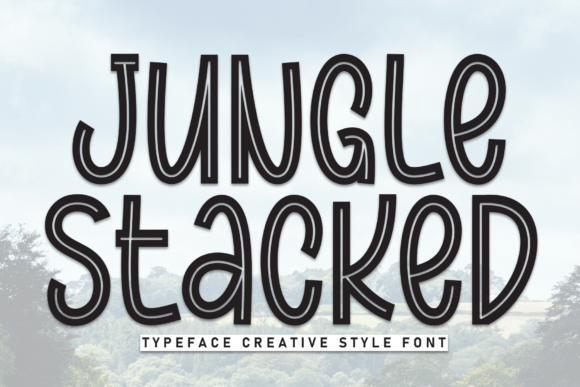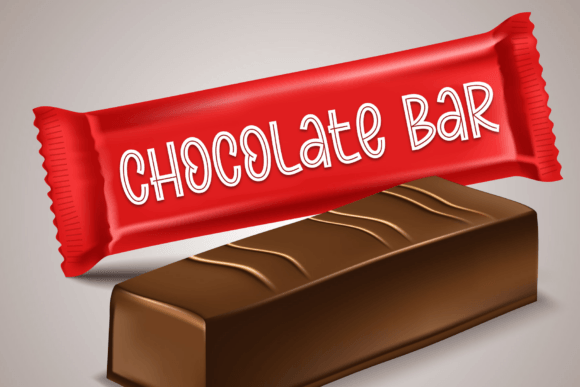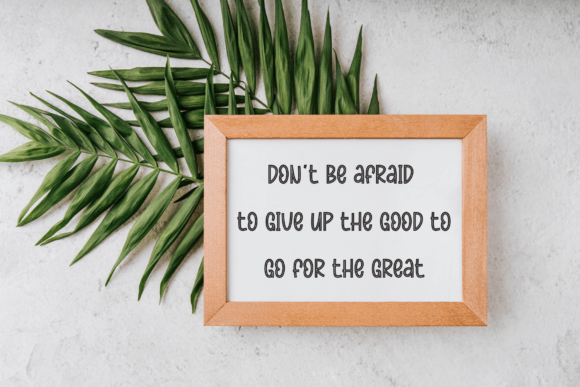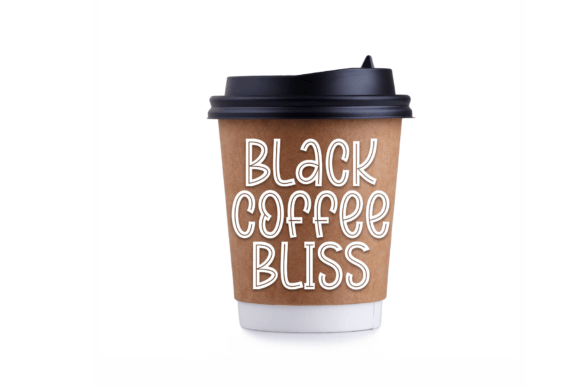
Jungle Stacked Font
About the Jungle Stacked Font
Unleash your creativity with Jungle Stacked Font, a versatile font perfect for a wide range of applications. Jungle Stacked is a playful bold font perfect for creating eye-catching designs. Its fun, unique style makes it great for posters, logos, and anything that needs a bit of extra flair. The font is displayed inline, giving it a modern and dynamic look.
Jungle Stacked’s bold, playful personality makes it ideal for headlines, short impactful phrases in branding materials, and eye-catching packaging designs. It excels in applications requiring immediate visual attention, such as posters, logos, and social media graphics. However, its inline display and strong weight make it less suitable for body text or UI elements where readability is paramount. Long blocks of text set in Jungle Stacked would be difficult to read.
Pairing Jungle Stacked effectively depends on the desired balance. For a more playful feel, consider pairing it with a rounded sans-serif like Bebas Neue or a quirky script font like Pacifico. To create a bolder, more impactful design, a geometric sans-serif such as Montserrat or a clean serif like Lora would provide a nice contrast and enhance readability in supporting text.
Ultimately, Jungle Stacked is best suited for brands and projects that need a fun, energetic, and memorable visual identity. Its modern aesthetic works well for anything from children’s products to quirky businesses aiming for a playful brand voice.
Jungle Stacked Font Usage Examples
Jungle Stacked Font Example